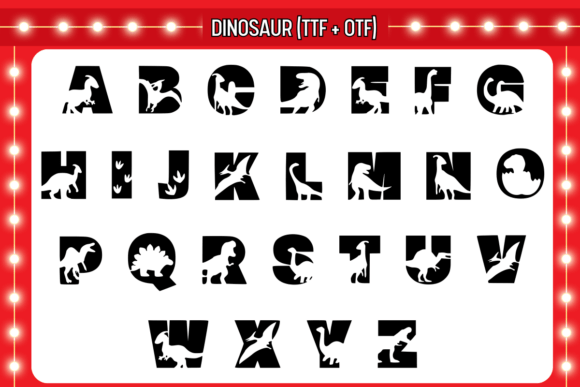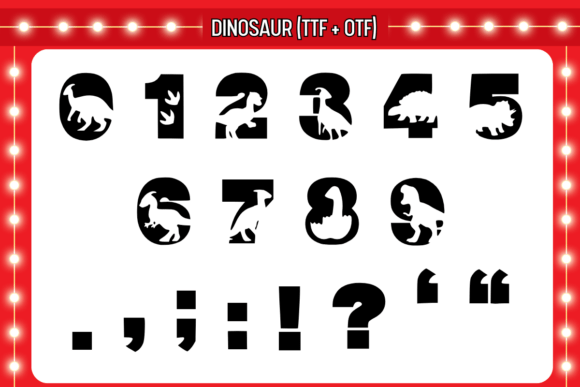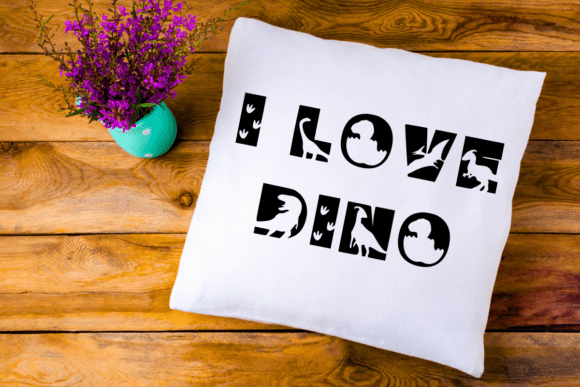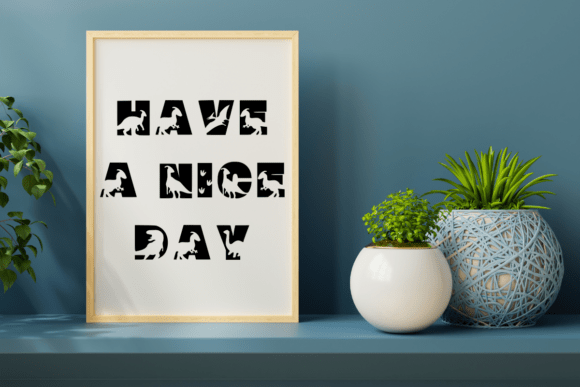
Roar into Design Fun with the Dinosaur Font!
Are you ready to unleash your creativity and take your designs back to the prehistoric era? Look no further than the Dinosaur Font, a bold and playful dingbats-style font that’s sure to delight designers, crafters, and dinosaur enthusiasts of all ages!
What is the Dinosaur Font?
The Dinosaur Font is a unique and eye-catching font that features iconic dinosaur silhouettes inside chunky block letters. From the mighty T-Rex to the long-necked Brachiosaurus, and even dino eggs, this font is packed with a variety of prehistoric creatures that will add a fun and creative touch to any design.
Perfect for Kids’ Projects and Educational Materials
The Dinosaur Font is perfect for kids’ projects, educational printables, and school materials. Imagine creating worksheets, activity sheets, or even a dinosaur-themed alphabet with this fun and engaging font. The bold and chunky letters make it easy to read, while the dinosaur silhouettes add an element of excitement and adventure.
Birthday Invitations and Party Decor
Are you planning a dinosaur-themed birthday party? The Dinosaur Font is the perfect addition to your party decor. Create custom invitations, banners, and even party hats with this fun and playful font. Your guests are sure to roar with excitement when they see the dinosaur designs!
Design Possibilities are Endless!
The Dinosaur Font is versatile and can be used for a wide range of design projects, including:
- Kids’ crafts and activities
- Educational materials and worksheets
- Birthday invitations and party decor
- School projects and presentations
- DIY signs and posters
Why Choose the Dinosaur Font?
Here are just a few reasons why the Dinosaur Font is a must-have for designers and crafters:
- Unique and eye-catching: The Dinosaur Font is a one-of-a-kind font that will make your designs stand out from the crowd.
- Versatile: The font can be used for a wide range of design projects, from kids’ crafts to educational materials.
- Fun and engaging: The dinosaur silhouettes add a fun and playful touch to any design, making it perfect for kids’ projects and party decor.
Tips and Tricks for Using the Dinosaur Font
Here are a few tips and tricks for getting the most out of the Dinosaur Font:
- Experiment with different colors: Try pairing the font with bright and bold colors to create a fun and playful design.
- Mix and match dinosaurs: Combine different dinosaur silhouettes to create a unique and eye-catching design.
- Use it with other fonts: Pair the Dinosaur Font with other fonts to create a fun and creative design.
Whether you’re a seasoned designer or a crafty crafter, the Dinosaur Font is sure to bring a smile to your face and inspire your creativity. So go ahead, get creative, and let your imagination run wild with the Dinosaur Font!